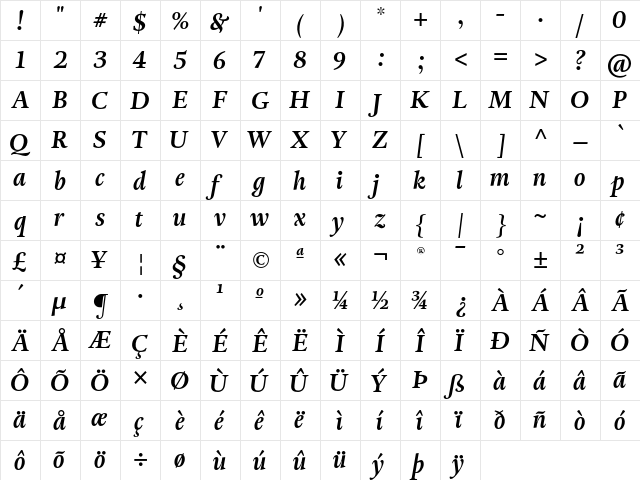
Adriane Text Bold Italic Font Preview
| Foundry | Marconi Lima / Typefolio Digital Foundry |
| Designer | Marconi Gomes Lima |
Design Context for Adriane Text Typeface
Adriane Text takes a measured approach to typography — its balanced proportions and neutral character make it a reliable workhorse for both digital and print work. The slanted form adds forward momentum and visual energy. The heavy weight commands attention and anchors typographic hierarchies.
Pro Tip: Try Adriane Text for annotation and caption copy alongside an upright companion — the contrast in angle creates a dynamic but ordered typographic system.